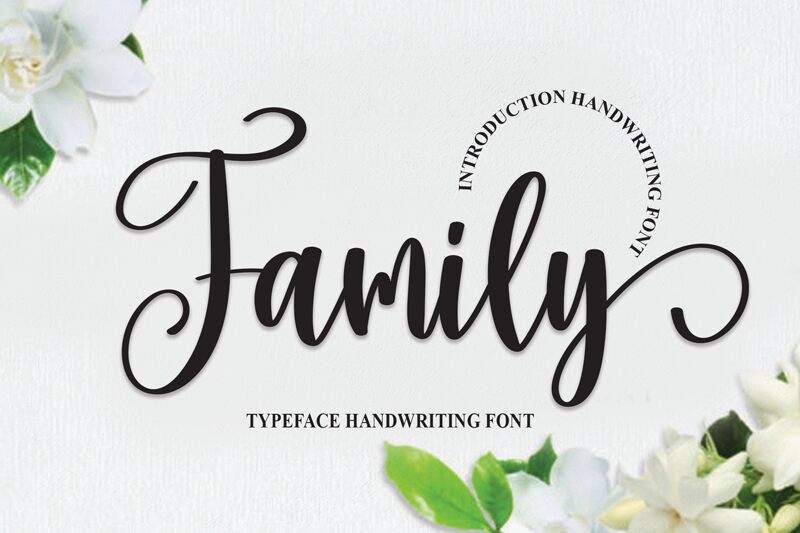
Family
Meet Family, the charming handwritten font designed by scratchones. With its semi-light weight and playful style, this font is perfect for a range of creative projects. Use it for invitations, greeting cards, social media graphics or even product packaging to add a touch of cuteness and whimsy. Its legibility and readability make it an ideal choice for titles and headlines while its friendly appearance makes it suitable for children's books and educational materials. So whether you're working on a brand identity or simply want to add some personality to your designs, Family is the perfect choice.
special creative products for you, our products will give you an extraordinary experience.
the latest style letters are perfect for wall displays, wedding invitations, social media post logos,
advertisements, product packaging, product designs, labels, photography, watermarks, invitations, stationery,
and any project that requires taste handwriting.